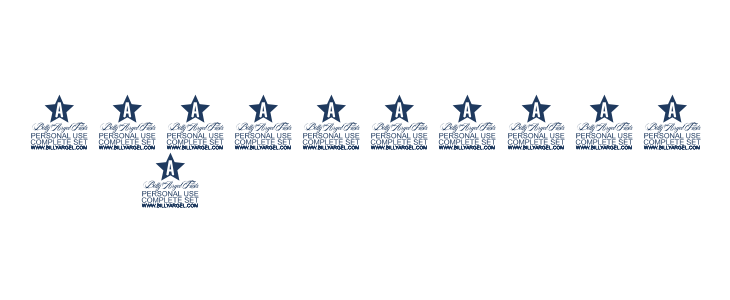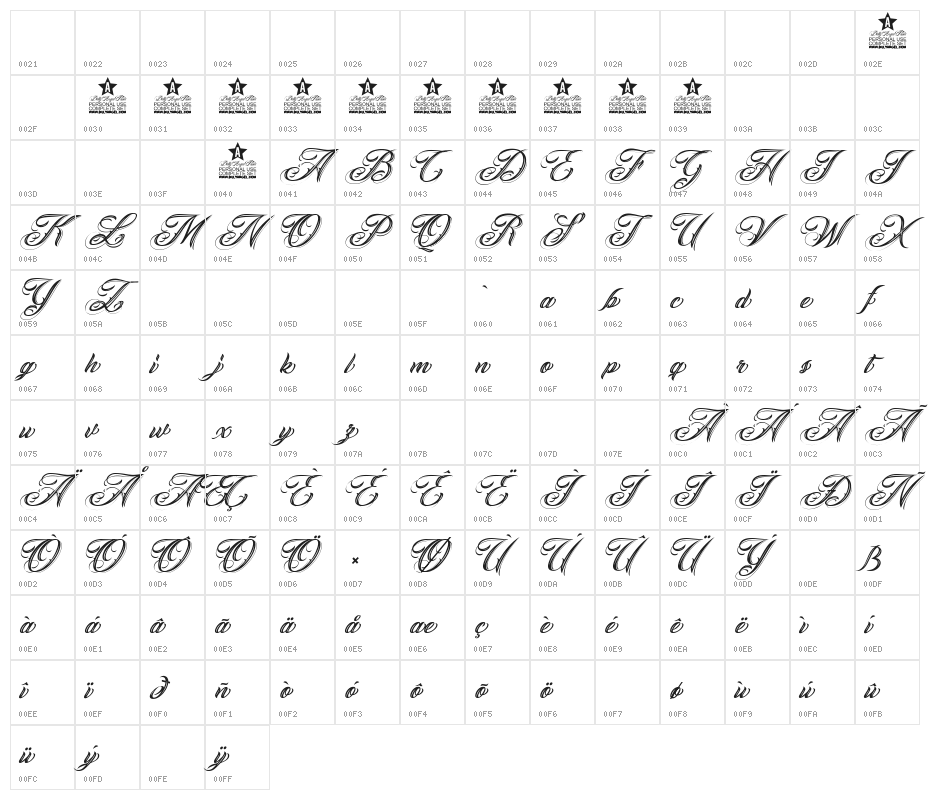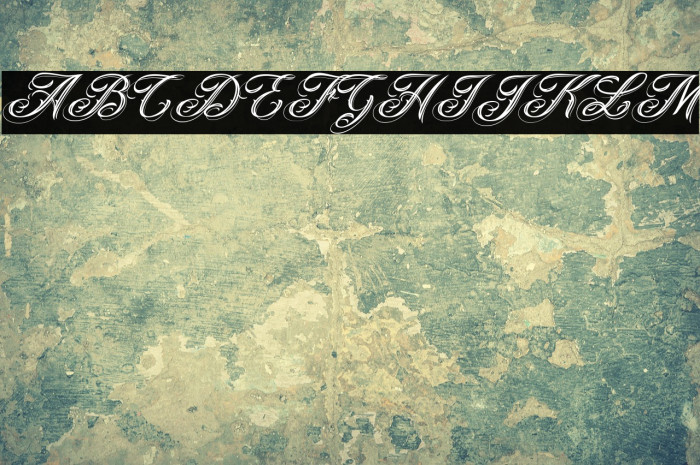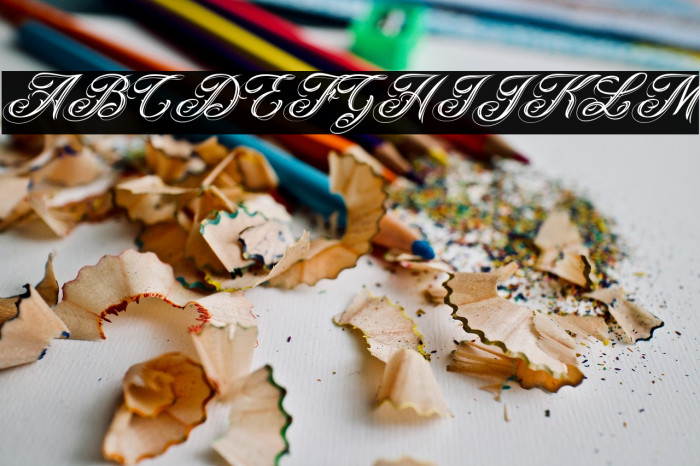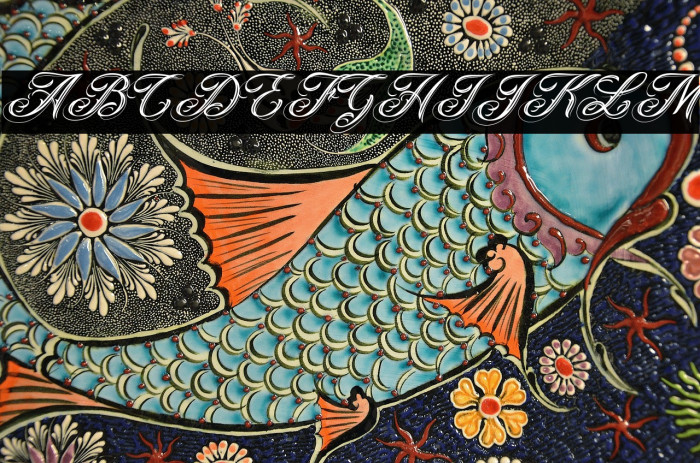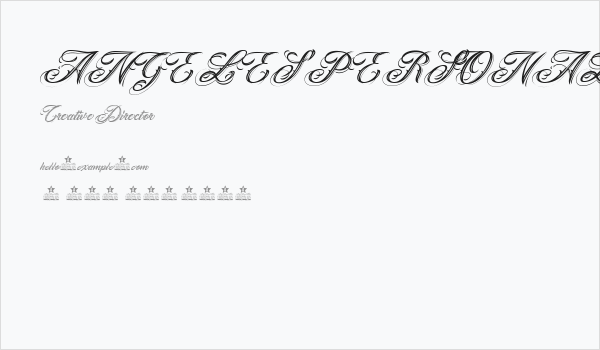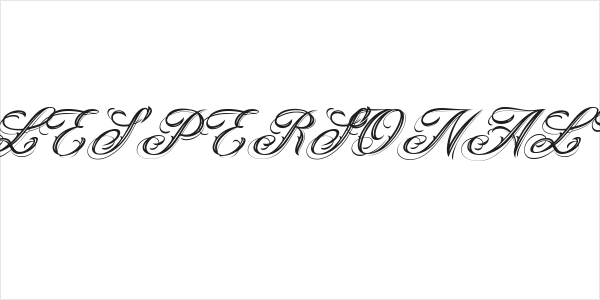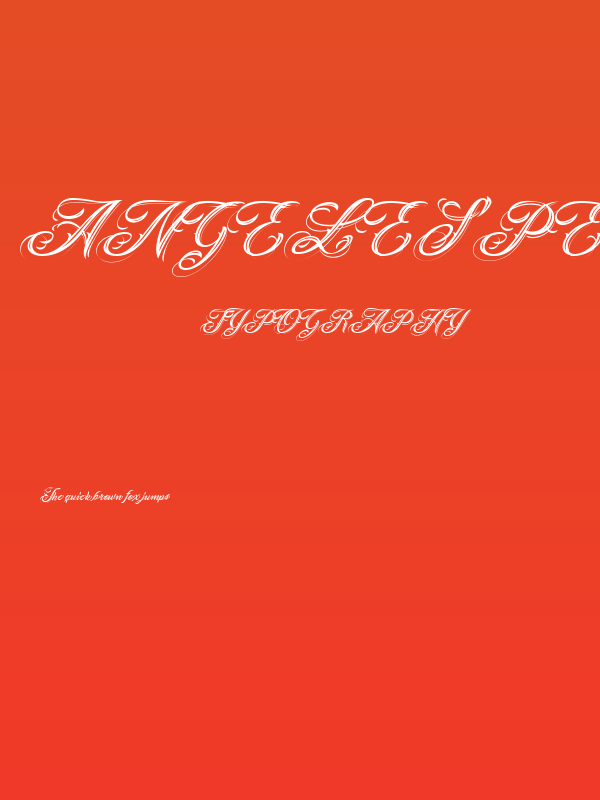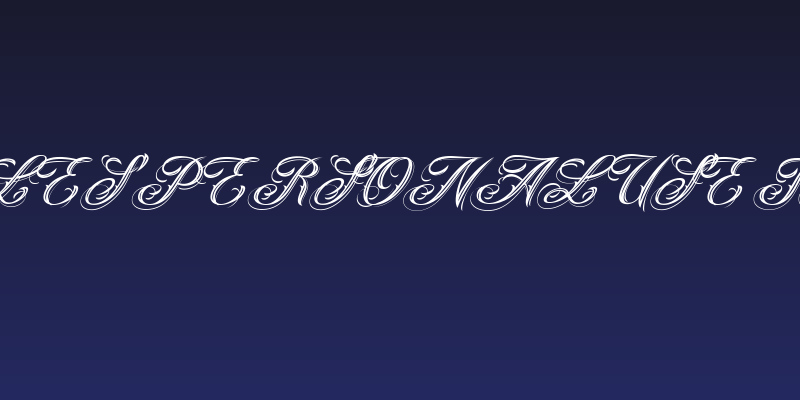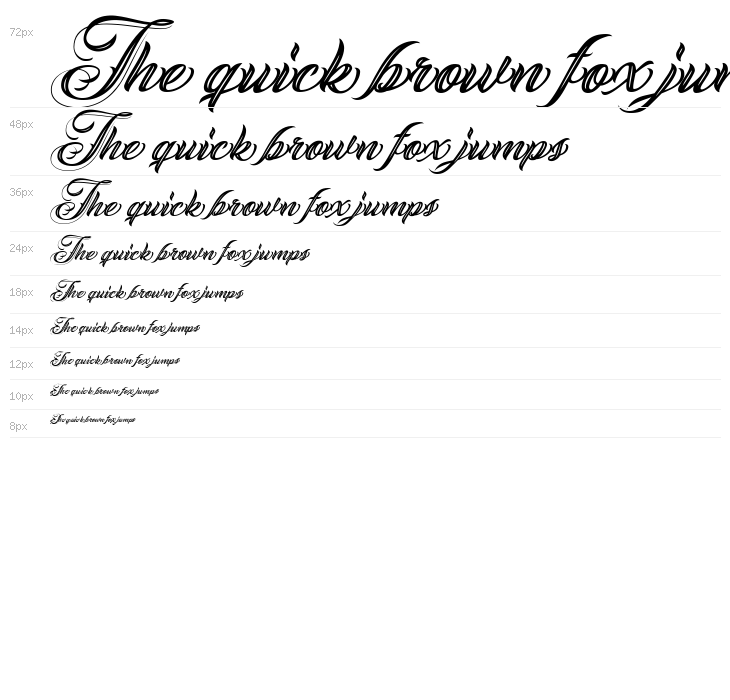
ANGELES PERSONAL USE Italic Font
ANGELES PERSONAL USE Italic Description
This font features an elegant and flowing script style, characterized by its intricate and decorative letterforms. The uppercase letters are adorned with elaborate swashes and flourishes, giving them a sophisticated and ornate appearance. The lowercase letters maintain a consistent cursive style, with smooth connections between each character. The overall design exudes a sense of elegance and formality, making it suitable for special occasions or decorative purposes. The italic nature of the font adds a dynamic and graceful touch, enhancing its visual appeal.